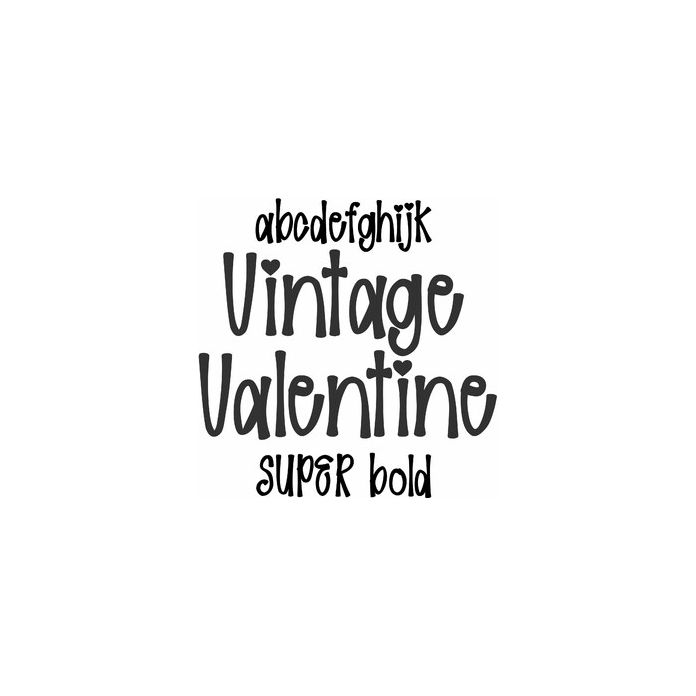
Vintage Valentine Super Bold is a thick handwritten font, with hearts for i's and j's, fun for cards, birthday and valentine gifts, personalization, signs, and projects. Includes alphabet, numbers, and punctuation.